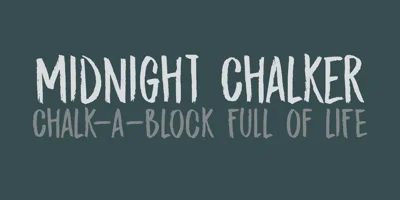
Midnight Chalker Font
The Midnight Chalker Font excels in various design applications including moody late-night cafe branding, atmospheric bar chalkboard signage, mysterious nighttime event materials, dark academic pub communications, nocturnal restaurant menu designs, gothic coffee shop identities, midnight study hall promotions, dark themed bookstore signage, atmospheric night market materials, and enigmatic evening projects that demand midnight mystery and chalky sophistication.
What makes the Midnight Chalker Font exciting is its atmospheric embodiment of nocturnal creativity and chalk-drawn artistry through letterforms that capture the essence of late-night inspiration and the mysterious appeal of midnight chalk artistry. This typeface demonstrates exceptional mood through carefully crafted characters that suggest the dusty texture of chalk on blackboard, the intimate atmosphere of candlelit spaces, and the creative energy that flows during quiet midnight hours when artistic inspiration strikes most powerfully. The font's chalky personality makes it perfect for nighttime establishments and creative venues seeking to communicate nocturnal atmosphere, artistic authenticity, and the kind of mysterious charm that creates memorable midnight experiences through typography that literally glows with chalk-dusted elegance.
The Midnight Chalker Font family typically includes atmospheric weight variations that enhance the nighttime aesthetic, featuring chalk-textured styling options and extended character sets optimized for evening communications and artistic applications. These family options often include midnight-inspired alternates, chalk symbols, and nocturnal decorative elements that provide designers with comprehensive tools for creating authentically atmospheric typography that celebrates nighttime creativity while maintaining contemporary design appeal and artistic credibility.
Creative professionals and nighttime venue operators consistently select Midnight Chalker Font for projects requiring typography that communicates nocturnal authenticity and chalk artistry sophistication. This typeface delivers exceptional performance in evening marketing, artistic branding, and atmospheric communications where establishing mood and creating mysterious atmosphere is essential for nighttime engagement. The font's chalk character makes it particularly effective for restaurant and creative space applications. Download Midnight Chalker Font today to access this atmospherically rich typeface that transforms nighttime communications with its chalky elegance and midnight sophistication, creating compelling nocturnal experiences that honor the magnificent creativity of late-night inspiration while celebrating the mysterious charm that defines authentic midnight artistic culture and atmospheric excellence.